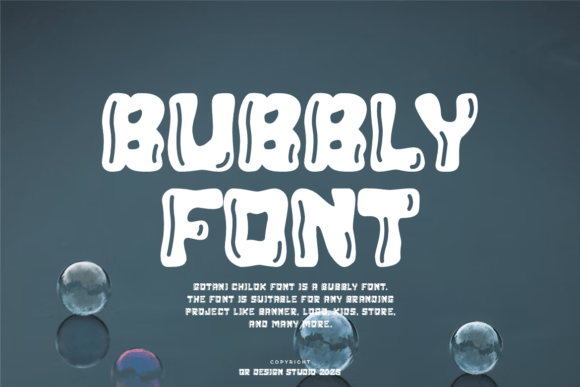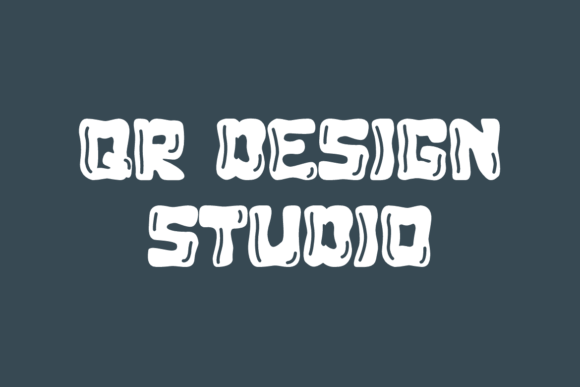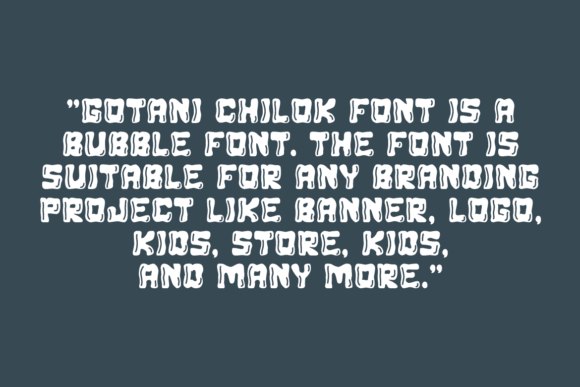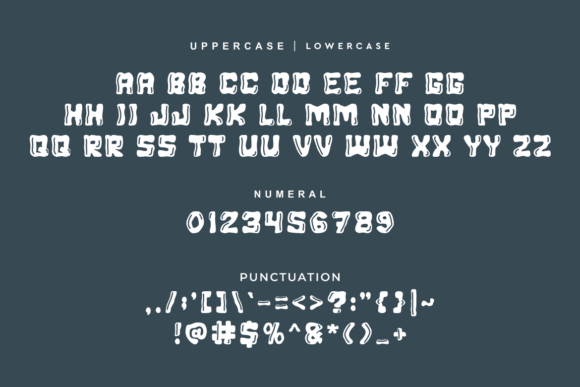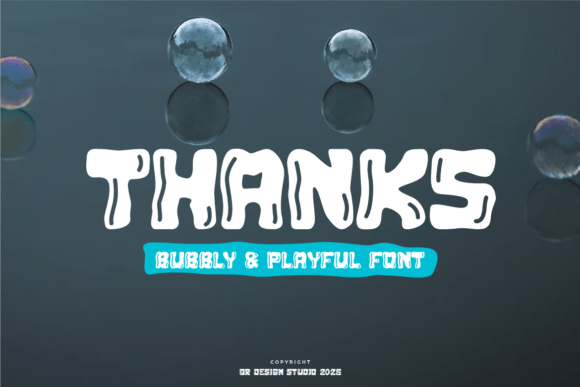
Introduction to Gotani Chilok Font
Imagine you’re brainstorming ideas for a new sports branding project, and suddenly, a spark of creativity hits you. You envision a bold, eye-catching logo that screams energy and excitement. The Gotani Chilok Font is the perfect design resource to bring your vision to life.
With its high-quality, authentic display font, Gotani Chilok Font is an exceptional choice for any branding project. Whether you’re working on a logo, a sports-related design, or any other creative project, this font is sure to make a lasting impression. Its transparent background allows for seamless integration with any design element, making it an invaluable asset for designers.
Key Features of Gotani Chilok Font
- High-quality design resource for creative projects, offering a unique and stylish look.
- Includes a large character set, including uppercase and lowercase letters, numbers, and punctuation marks.
- Designed to be scalable, with a resolution of 300 DPI, making it suitable for use in various design applications.
- Perfect for use in creative projects, such as logos, branding materials, and editorial designs, where a unique and eye-catching font is required.
Honest Review: Gotani Chilok Font
I recently had the chance to try out the Gotani Chilok Font, and I must say it’s been a solid addition to my design resource library. The font is perfect for those creative projects that need a touch of uniqueness.
What works well is the high quality of the font itself. The lines are crisp, and the character spacing is well-balanced. The transparent background option also makes it easy to use as a background element in designs.
- ✨ Beautifully designed and high-quality font
- ✨ Easy to use due to transparent background option
- ✨ Perfect for creative projects that require a unique touch
However, I did encounter some limitations. The font only comes in a few weights, which might not be ideal for projects that require a lot of font variations.
- ⚠️ Limited font weights available
- ⚠️ May not be suitable for projects that require extensive font variations
Overall, I’d say the Gotani Chilok Font is a great free download that’s perfect for small to medium-sized creative projects. While it has some limitations, it’s a solid choice for designers who are looking for a unique and high-quality font.
The Gotani Chilok Font is a high-quality design resource ideal for creative projects. Its unique style and transparent background make it perfect for various applications.
To get the most out of the Gotani Chilok Font, use it in combination with other high-quality design resources. Experiment with different font sizes, colors, and styles to create unique and eye-catching designs.
The Gotani Chilok Font is ideal for various creative projects, including:
- Branding